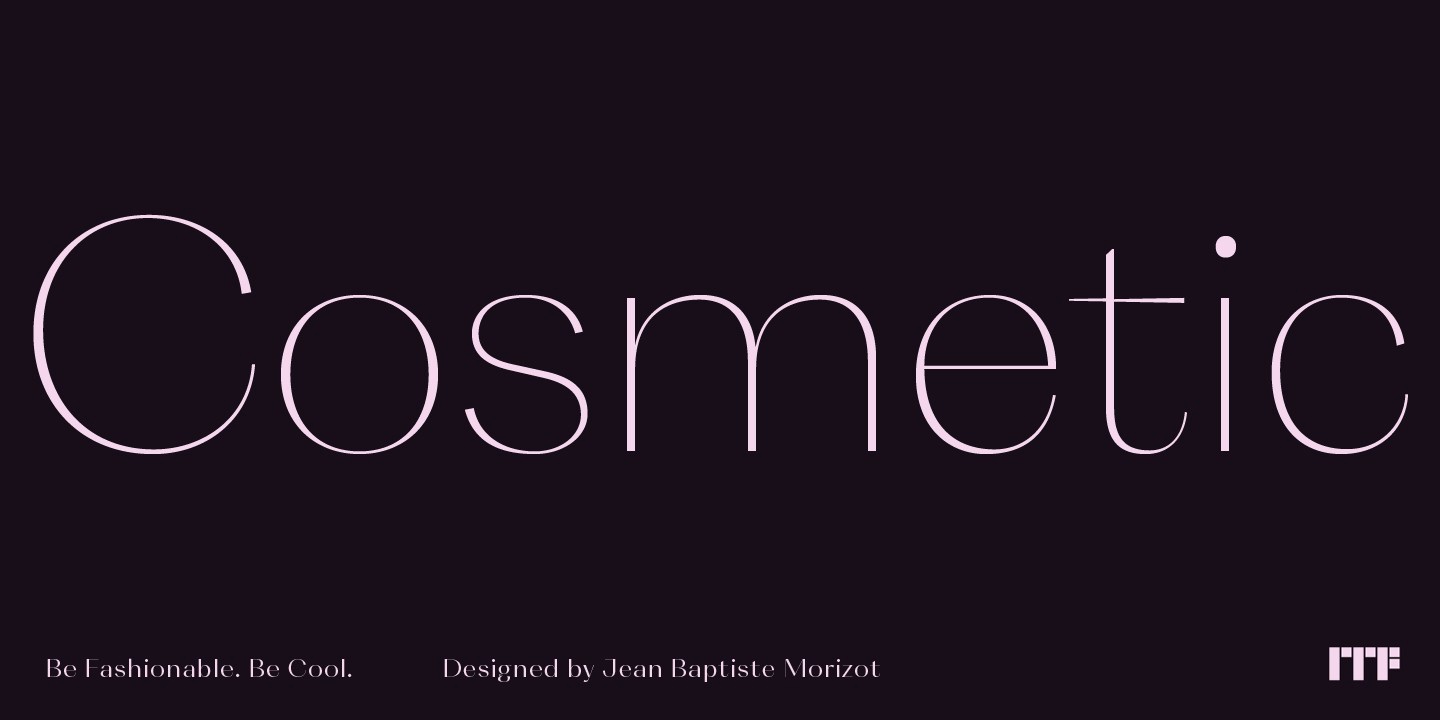
Cosmetic Font
Cosmetic Font is perfect for luxury beauty brand logos, high-end cosmetics packaging, sophisticated makeup artist portfolios, premium skincare product labels, elegant beauty salon signage, refined spa treatment menus, upscale fragrance advertisements, exclusive beauty boutique materials, professional cosmetology school graphics, and prestige beauty industry communications. This refined typeface excels in applications where beauty excellence, cosmetic sophistication, and luxury personal care are fundamental brand characteristics.
What makes Cosmetic Font exciting is its flawless embodiment of beauty industry elegance through perfectly crafted letterforms that mirror the precision and artistry found in professional makeup application and luxury cosmetic formulations. The font features smooth character construction with refined details and polished proportions that immediately convey quality, sophistication, and the kind of professional expertise that defines the luxury beauty industry. Its pristine personality makes it perfect for brands that celebrate the transformative power of cosmetics while maintaining the professional standards essential for premium beauty services.
The Cosmetic Font family typically includes Light and Regular weights, often accompanied by elegant italic variations that enhance the flowing, graceful aesthetic essential for beauty industry applications. Many versions include decorative alternates with enhanced beauty styling, refined ligatures that reflect the smooth application of premium cosmetics, and special symbols related to beauty tools and cosmetic artistry. Some collections include outline variations and sophisticated effects that amplify the polished, professional beauty atmosphere for luxury positioning.